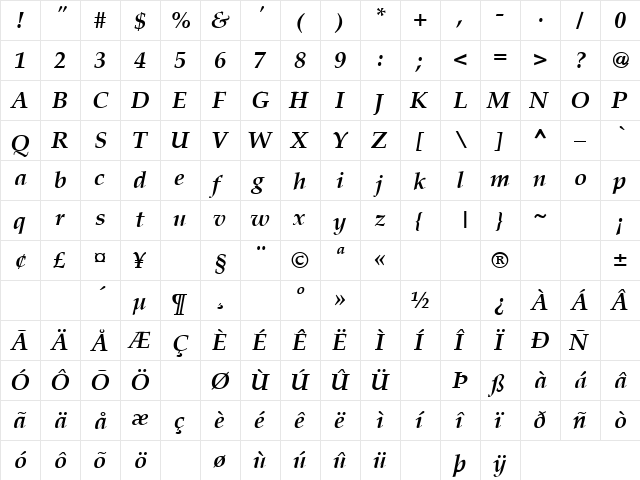
Whipping Post 9 Regular
Design Context for Whipping Post 9 Typeface
Whipping Post 9 offers clean, dependable letterforms without strong stylistic allegiance, making it a practical choice for designers who need flexibility.